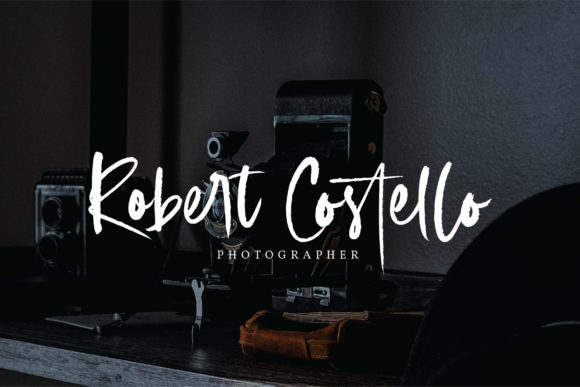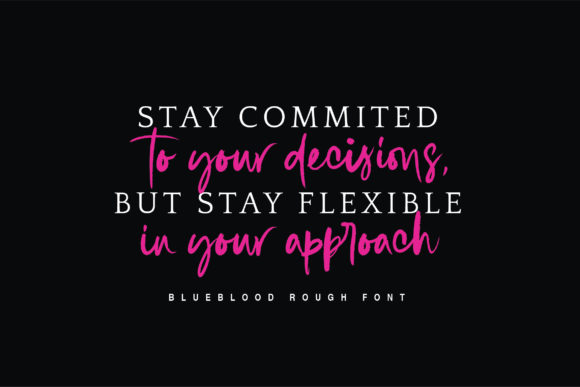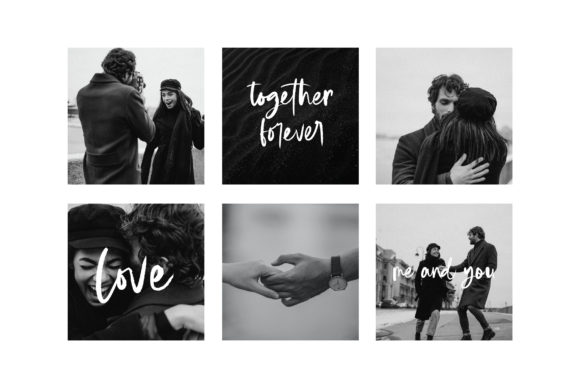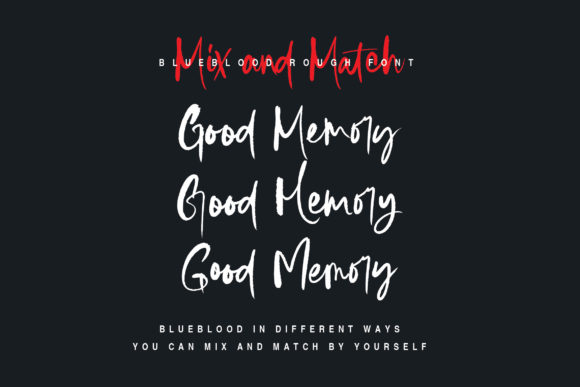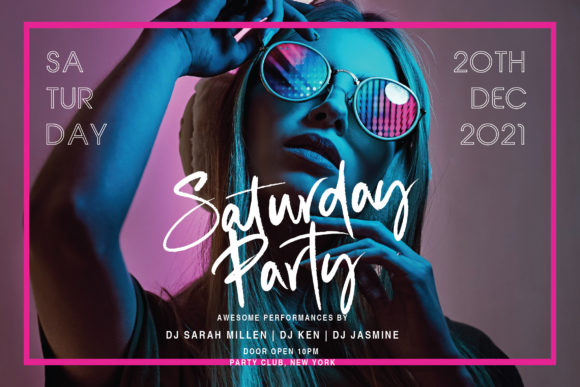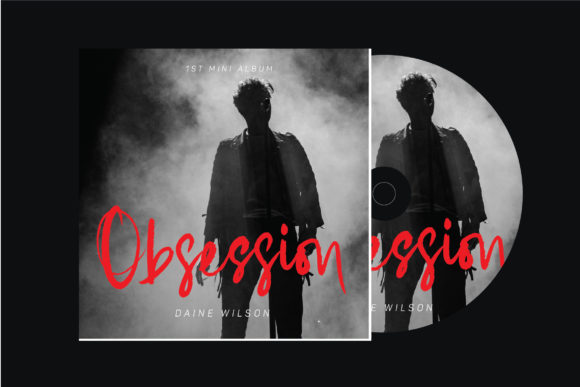
Introducing Blueblood Font: A Signature Brush Font Trio for Creative Designs
Are you a designer or crafter looking for a unique and stylish font to elevate your creative projects? Look no further than Blueblood Font, a signature brush font trio that offers a range of possibilities for customized designs. In this article, we’ll dive into the features and benefits of Blueblood Font, and explore how it can be used to create stunning logos, branding, fashion designs, wedding invitations, and handwritten quotes.
What is Blueblood Font?
Blueblood Font is a signature font that features a textured brush style, giving it a distinctive and authentic look. The font comes in three alternatives, allowing you to experiment with different styles and find the one that best suits your design needs. With its stylistic alternate and numerous ligatures, Blueblood Font offers a high level of customization, making it perfect for creating unique signatures, logos, and designs.
Key Features of Blueblood Font
• Textured Brush Style: Blueblood Font features a textured brush style that gives it a hand-crafted look and feel.
• Three Alternatives: The font comes in three alternatives, allowing you to experiment with different styles and find the one that best suits your design needs.
• Stylistic Alternate: Blueblood Font offers a range of stylistic alternates, giving you the flexibility to create customized designs.
• Ligatures: The font includes numerous ligatures, which allow you to create smooth and flowing connections between letters.
Uses for Blueblood Font
Blueblood Font is a versatile font that can be used for a wide range of design projects, including:
• Logo Design: Create a unique and memorable logo for your brand or business using Blueblood Font.
• Branding: Use Blueblood Font to create a consistent brand identity across all your marketing materials.
• Fashion Design: Add a touch of elegance and sophistication to your fashion designs with Blueblood Font.
• Wedding Invitations: Create beautiful and personalized wedding invitations using Blueblood Font.
• Handwritten Quotes: Use Blueblood Font to add a touch of personality and style to your handwritten quotes.
Benefits of Using Blueblood Font
By using Blueblood Font, you can:
• Stand Out from the Crowd: With its unique textured brush style and customizable features, Blueblood Font can help you create designs that stand out from the crowd.
• Save Time: The font’s ligatures and stylistic alternates make it easy to create professional-looking designs quickly and efficiently.
• Enhance Your Brand: Blueblood Font can help you create a consistent brand identity that reflects your values and personality.
Tips for Using Blueblood Font
Here are some tips for getting the most out of Blueblood Font:
• Experiment with Different Styles: Try out the different alternatives and stylistic alternates to find the one that best suits your design needs.
• Play with Ligatures: Experiment with different ligatures to create smooth and flowing connections between letters.
• Use it with Other Fonts: Combine Blueblood Font with other fonts to create a unique and visually appealing design.
Blueblood Font is a powerful and versatile font that offers a range of possibilities for creative designs. With its textured brush style, stylistic alternate, and numerous ligatures, it’s perfect for creating customized signatures, logos, and designs. Whether you’re a designer or crafter, Blueblood Font is a great addition to your font library. So why not give it a try and see what amazing designs you can create?